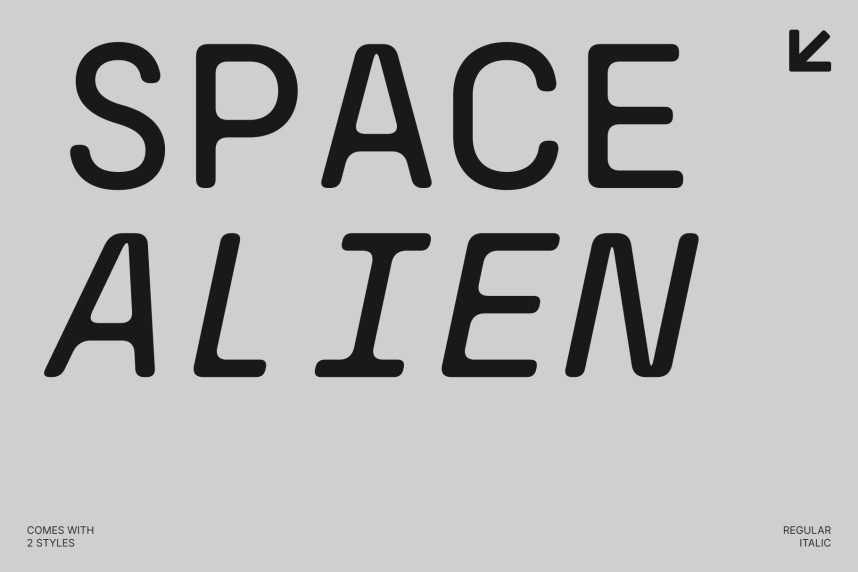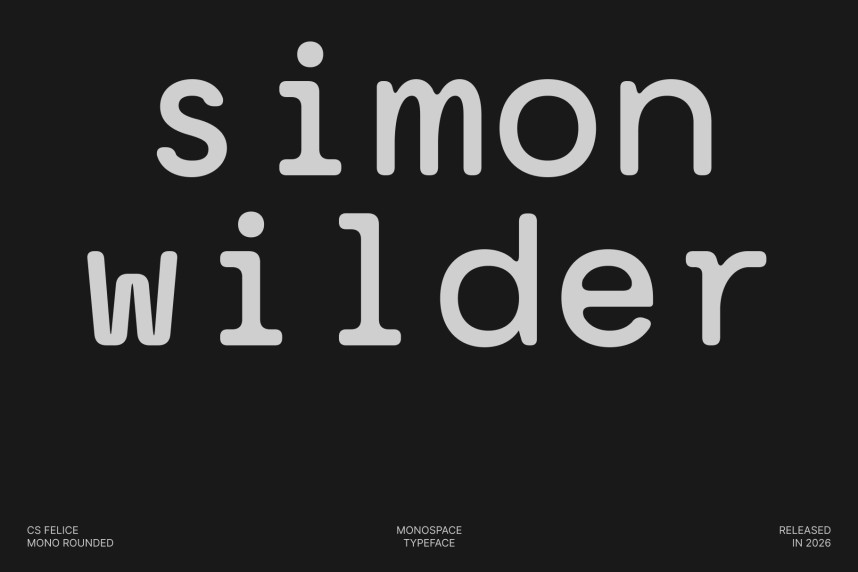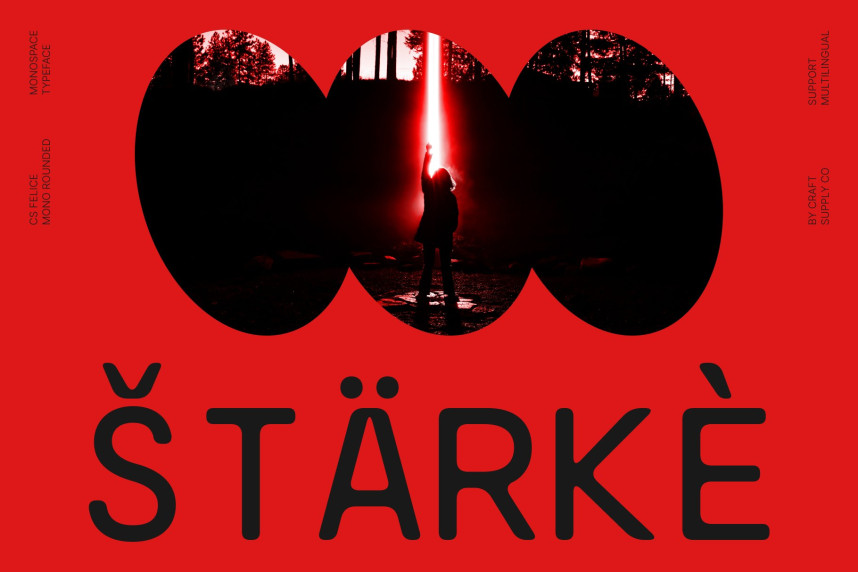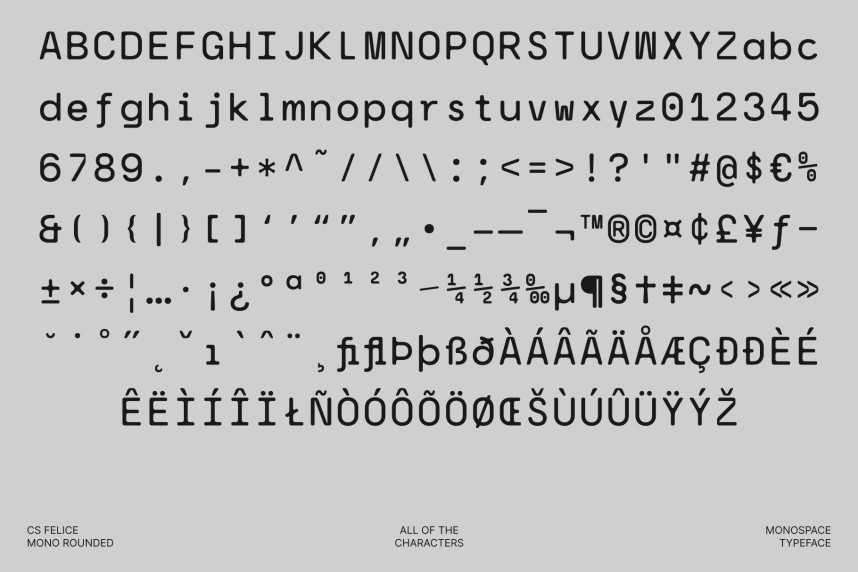
CS Felice Mono Rounded
CS Felice Mono Font – Precision and Clarity in Every Character Consistent Spacing for Perfect Alignment. This is a monospaced sans serif font built with equal-width characters to ensure consistent spacing and precise alignment. This uniform structure enhances readability and accuracy, making it ideal for c